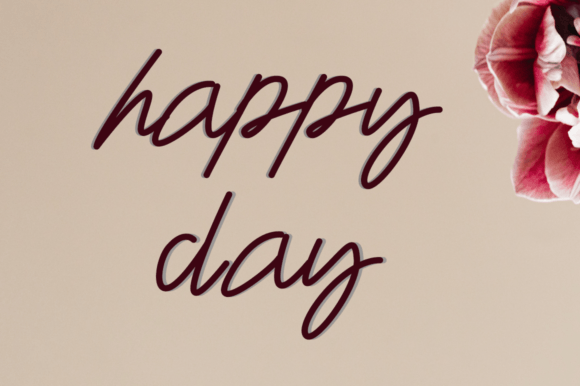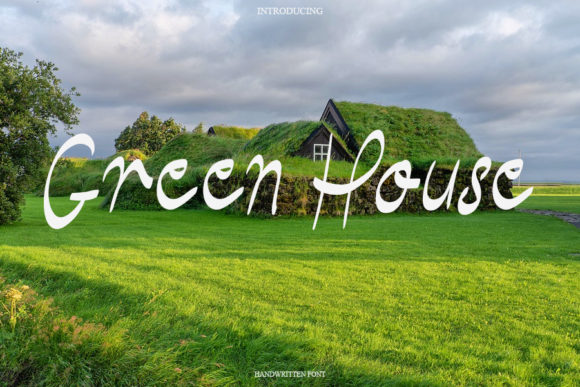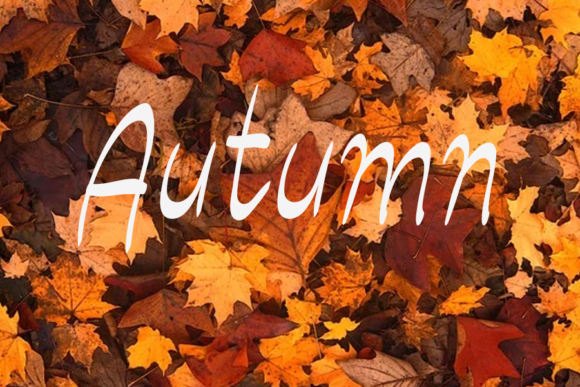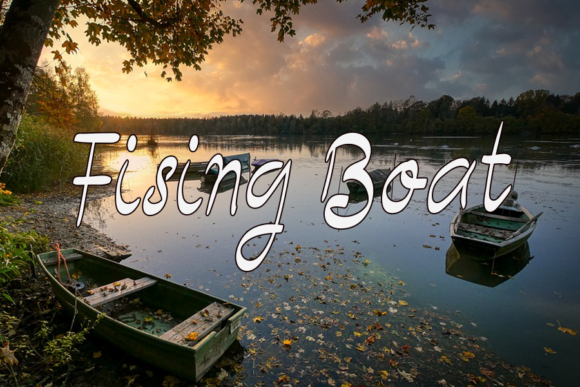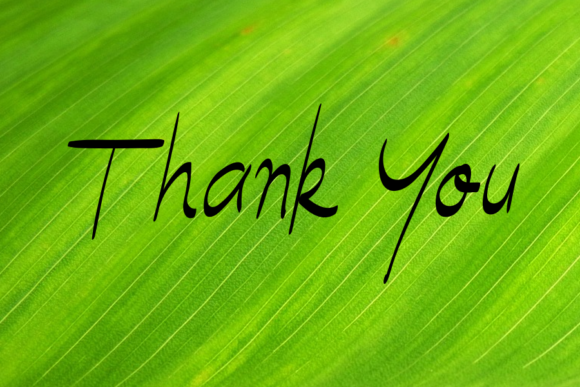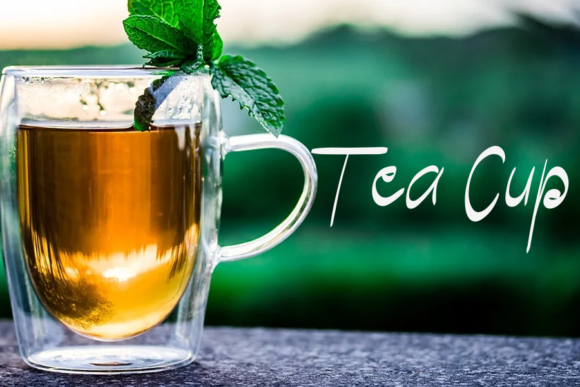
Green House Font
About Green House Font
Green House is a chic, refined script font that emanates sophistication and elegance. Its stylish alternates and ligatures make this font the perfect match for any project.